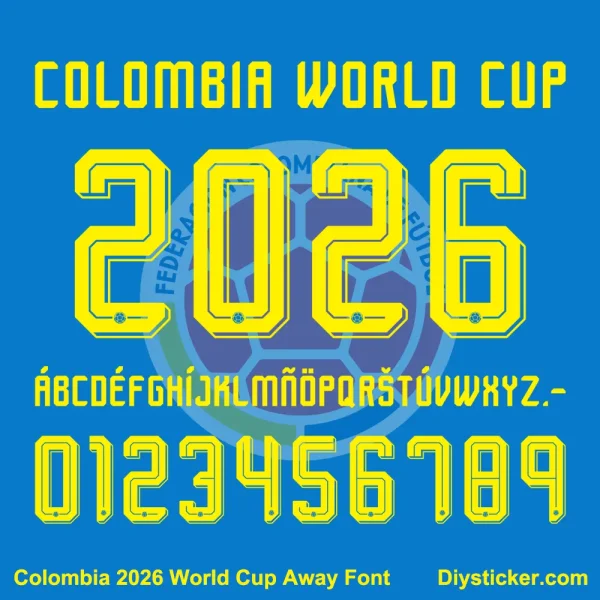
Celebrate the passion of Colombian football with the Colombia 2026 World Cup Away Font. This bold, modern typeface captures the spirit of the away kit design – perfect for designers, content creators, and sports brands preparing for the next global tournament.
Font character set:
Uppercase A–Z
Numbers 0–9
Punctuation: . (dot) and – (hyphen)
Features:
Clean, athletic, modern aesthetic
High readability at any size
Whether you’re designing for the Colombia national team fan base or creating sports content, this font delivers the authentic away-match look.